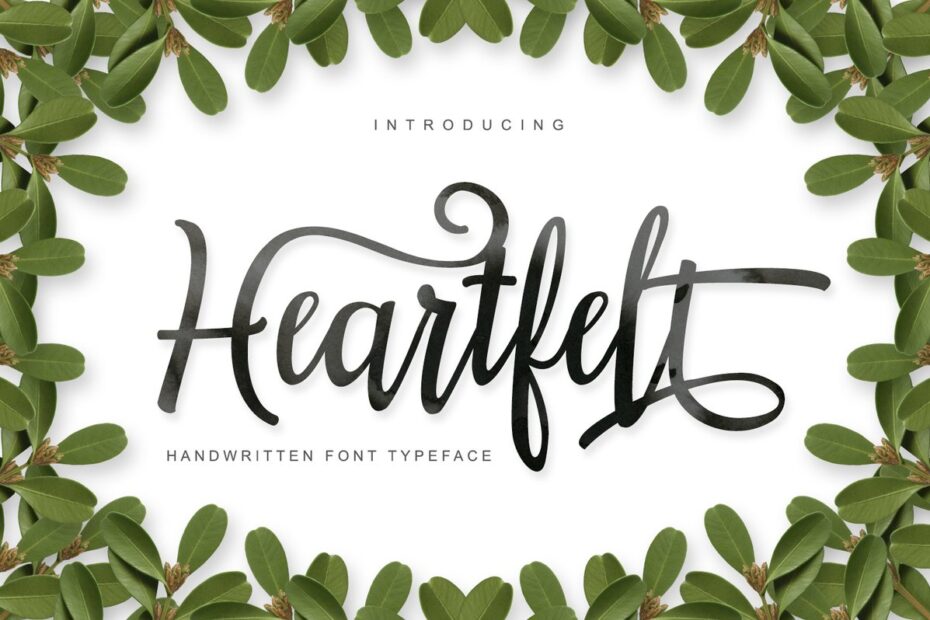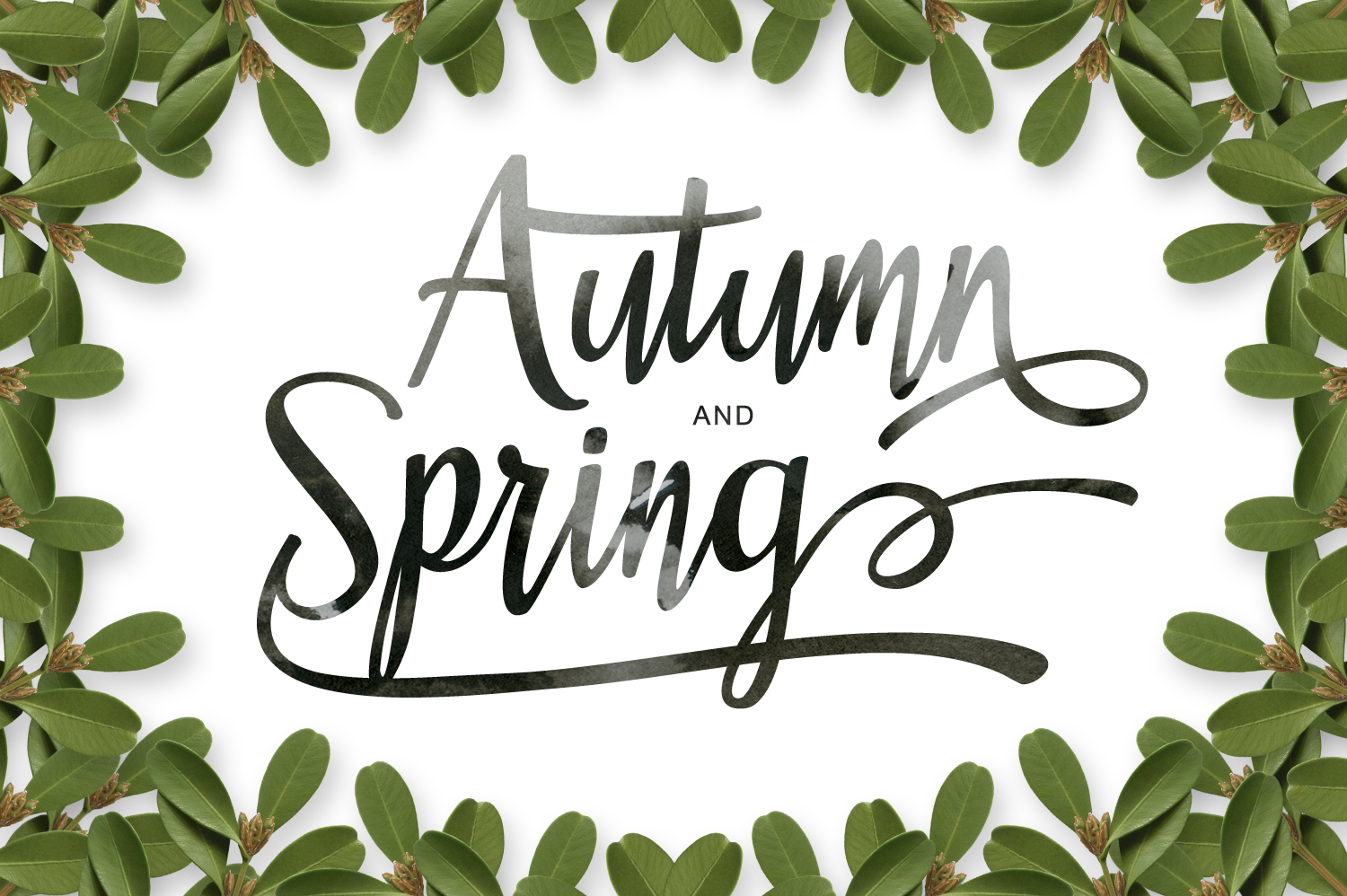
The Perfect Font for Expressive Designs: Heartfelt Font
Have you ever sat in front of your computer, staring at a blank screen, and suddenly a burst of creativity hits you? The ideas start flowing, and before you know it, you’re envisioning the perfect design. This moment is every designer’s dream, and the right font can make all the difference. That’s where Heartfelt Font comes in – a stunning adaptable font that’s perfect for a multitude of expressive designs.
As a designer, you understand the importance of choosing the right font to convey your message and evoke emotions. Heartfelt Font is more than just a font – it’s a tool that allows you to connect with your audience on a deeper level. With its versatility and adaptability, it’s the perfect choice for designers looking to create truly impactful designs.
Key Features of Heartfelt Font
- Font Family: Heartfelt Font comes in two font families, Regular and Bold, each with its unique characteristics.
- Size: Heartfelt Font is available in a range of sizes, from 8pt to 72pt, making it suitable for various design applications.
- Resolution: Designed to be scalable, Heartfelt Font can be used at high resolutions (up to 300 DPI) without compromising its quality.
- Unique Characteristics: Heartfelt Font features a handwritten, cursive style with subtle flourishes and swashes, making it perfect for adding a touch of elegance and sophistication to designs.
- Language Support: Supports a wide range of languages, including English, Spanish, French, German, Italian, and many more, making it a versatile font for global designs.
Heartfelt Font Review
Overall, I think the Heartfelt Font has a lot of potential, but it’s not without its quirks. Here are my thoughts on what works well and what doesn’t.
- The font’s emotional and expressive feel is perfect for projects that require a personal touch. It’s great for quotes, social media posts, and other content that needs to evoke feelings.
- The font’s high x-height makes it readable even at small sizes, which is a plus for digital projects.
- The font comes in a variety of weights, which gives designers flexibility in choosing the right style for their project.
- The font’s irregular letterforms can make it difficult to read in certain contexts, such as body text or long blocks of text.
- The font’s lack of uniformity in terms of spacing and kerning can be distracting, especially in headings and titles.
The Heartfelt Font is a great choice for designers who want to add a touch of personality to their projects. However, it’s not a good fit for every project, and designers should be mindful of its limitations when choosing it for their work.
Getting the Most Out of Heartfelt Font
Use Heartfelt Font for:
– Creating emotional and personal quotes
– Adding a touch of warmth to wedding invitations or event materials
– Designing stationery or greeting cards
Some common use cases for Heartfelt Font include:
– Creating a heartfelt birthday message
– Designing a custom wedding invitation
– Adding a personal touch to a sympathy card
Alternatives to Heartfelt Font
Great Vibes is a beautiful script font perfect for creating a sense of elegance and sophistication. It is ideal for wedding invitations, wedding stationery, and other special occasions. Great Vibes is more delicate and refined compared to Heartfelt Font, making it suitable for more formal events.
Alex Brush is a elegant script font designed for creating a sense of luxury and refinement. It is perfect for high-end branding, packaging, and marketing materials. Compared to Heartfelt Font, Alex Brush is more polished and sophisticated, making it ideal for premium products and services.
Lobster is a fun and casual script font perfect for creating a sense of playfulness and friendliness. It is ideal for social media, advertising, and other marketing materials that require a lighthearted tone. Lobster is more informal and fun compared to Heartfelt Font, making it suitable for younger audiences and casual brands.
Carolyna Pro is a modern script font designed for creating a sense of elegance and sophistication. It is perfect for branding, packaging, and marketing materials that require a sense of refinement. Compared to Heartfelt Font, Carolyna Pro is more modern and sleek, making it ideal for contemporary brands and products.
Can I customize the Heartfelt Font to fit my design needs?
The Heartfelt Font is designed to be highly customizable, with features like ligatures, alternates, and swashes. You can also use font editing software to customize the font to suit your specific design requirements.
What is the recommended font size and line spacing for optimal readability?
For optimal readability, we recommend using a font size between 12pt and 18pt, with a line spacing of 1.2 to 1.5 times the font size. This will ensure that the text is clear and easy to read, even at smaller sizes.